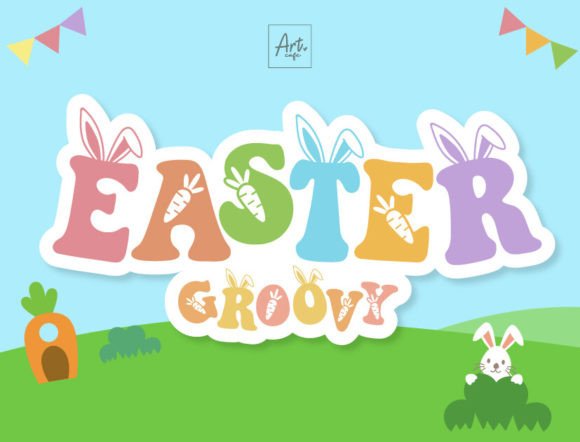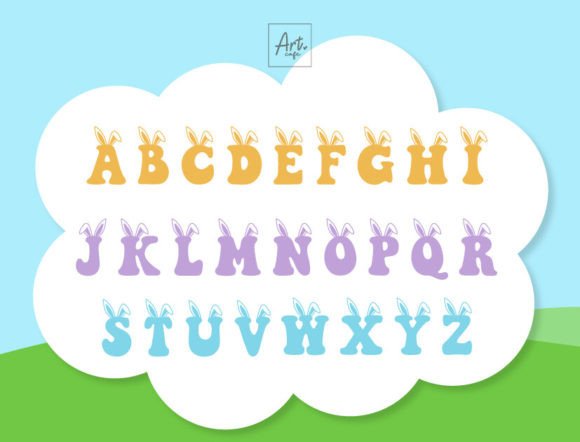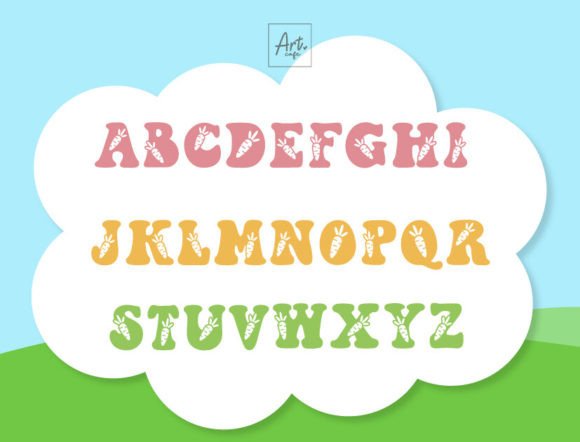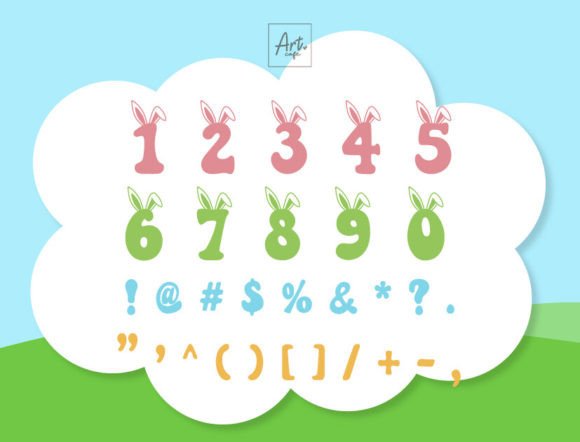
Easter Groovy Font
About the Easter Groovy Font
Experience the unique personality of Easter Groovy Font, a font designed for impact. Unleash the spirit of Easter and the vibrancy of spring with the unique charm of Easter Groovy font! Each character radiates the nostalgic essence of the retro era, beautifully adorned with playful bunny ears and charming carrots. It’s not simply a typeface; it’s an artistic celebration ideal for kid’s alphabets, capturing the joy and wonder of the spring season and the fun-filled Easter holiday. Experience the captivating allure of Easter Groovy; it’s where nostalgia meets whimsy.
Easter Groovy’s playful design is best suited for headlines, short text blocks on invitations or greeting cards, and playful branding elements for children’s products or Easter-themed projects. Its highly decorative nature makes it unsuitable for body text or UI elements where readability is paramount. Long paragraphs set in this font would be difficult to read.
The font’s core personality is undeniably playful and whimsical. To balance this, pairing it with a clean, sans-serif font like Open Sans for body copy provides a strong contrast and enhances legibility. Alternatively, a simple serif like Lora could offer a touch of classic elegance to temper the font’s exuberance.
For a more cohesive brand identity, consider supplementing Easter Groovy with a script font for smaller details or accents, maintaining a consistent, light-hearted feel. Avoid pairing it with overly heavy or geometric fonts, which would clash with its organic and hand-drawn aesthetic.
Easter Groovy Font Usage Examples
Easter Groovy Font Example